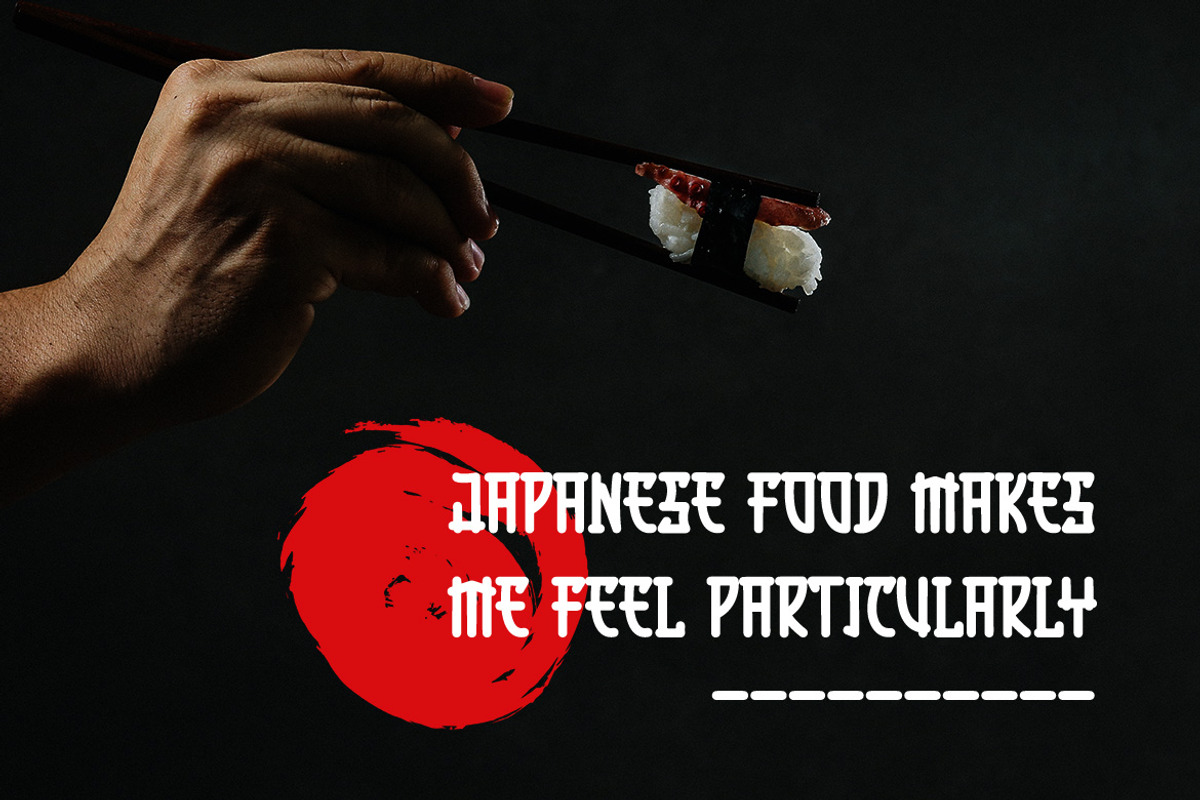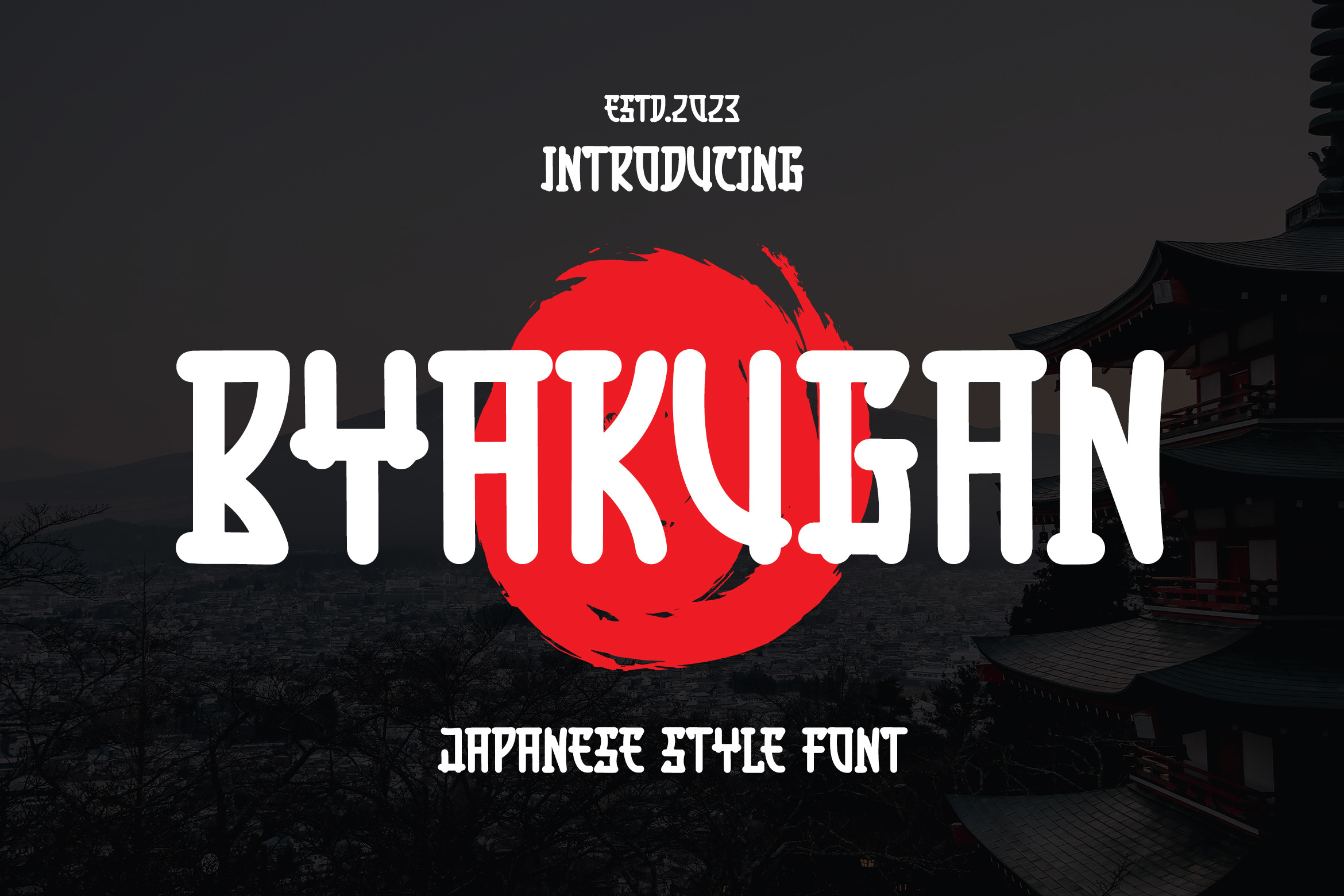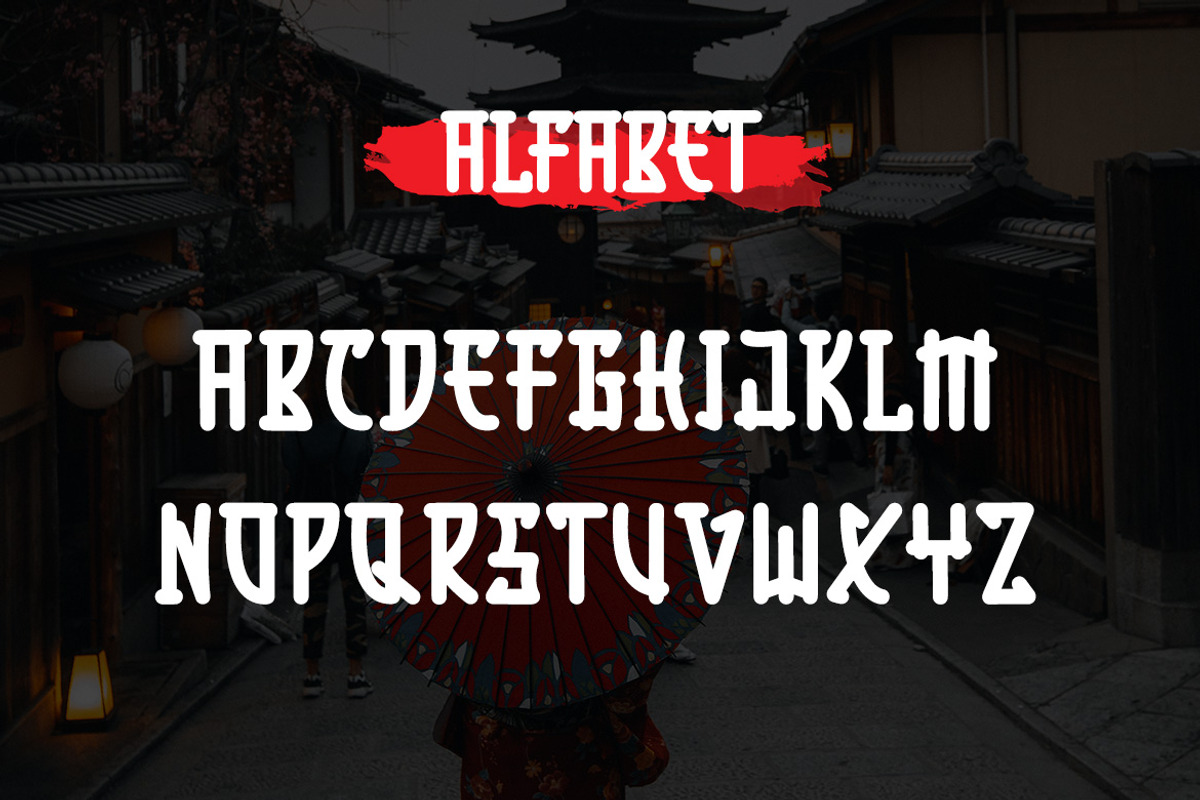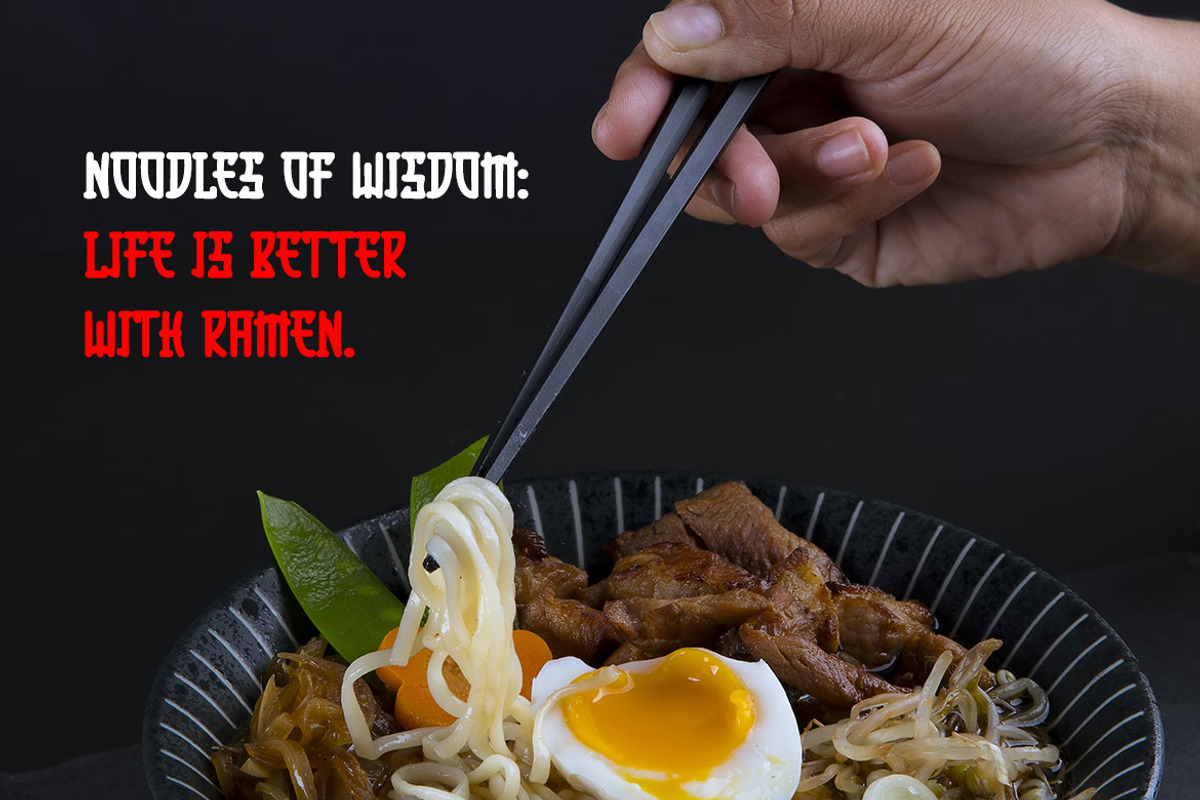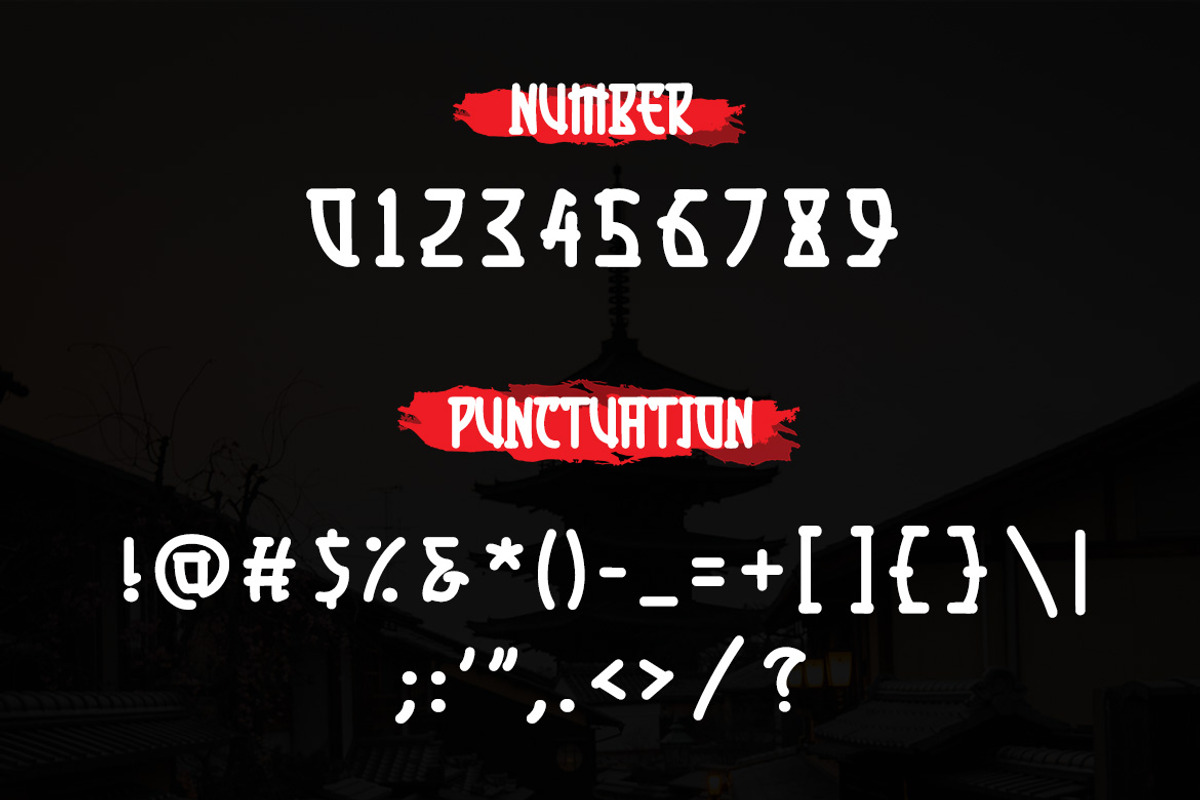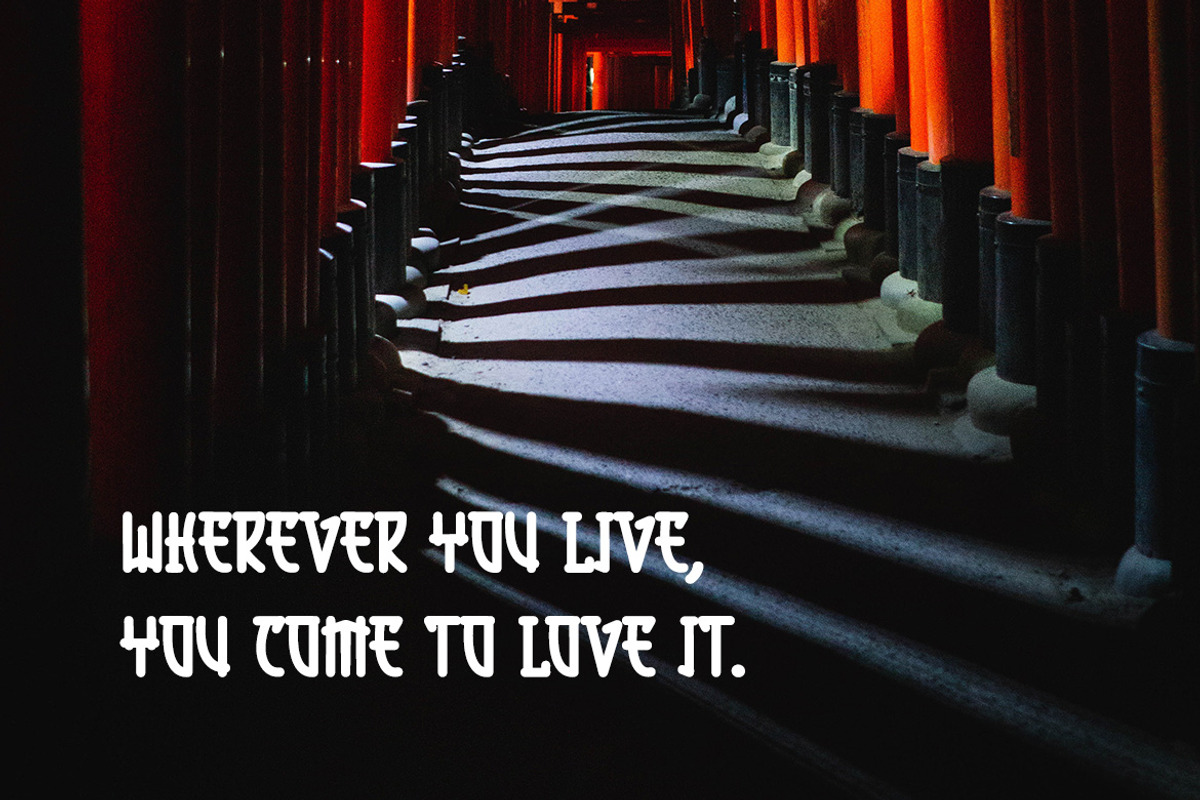
BYAKUGAN - Japanese Style Font
BYAKUGAN is a unique display typeface perfect for titles, large text, branding, logotypes & graphic design purposes such as posters, pamphlets, and advertisements. This letter font can be a great choice for creating amazing logos, promotional content, and marketing presentations that can bring uniqueness and freshness at its best.